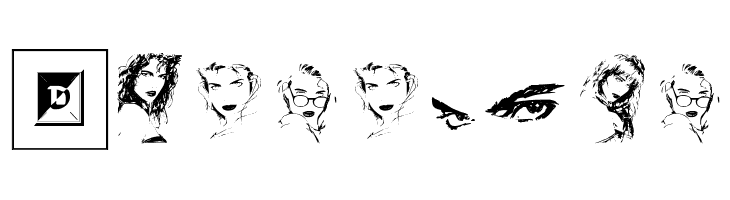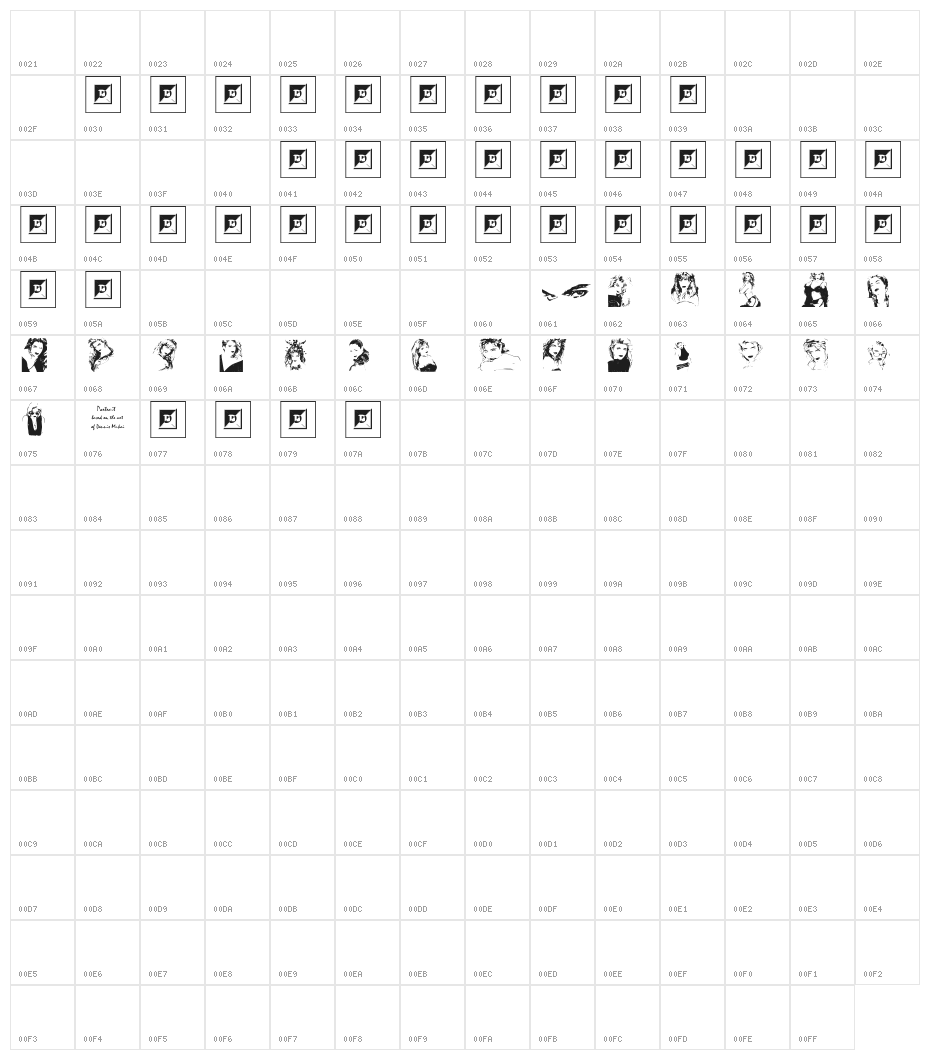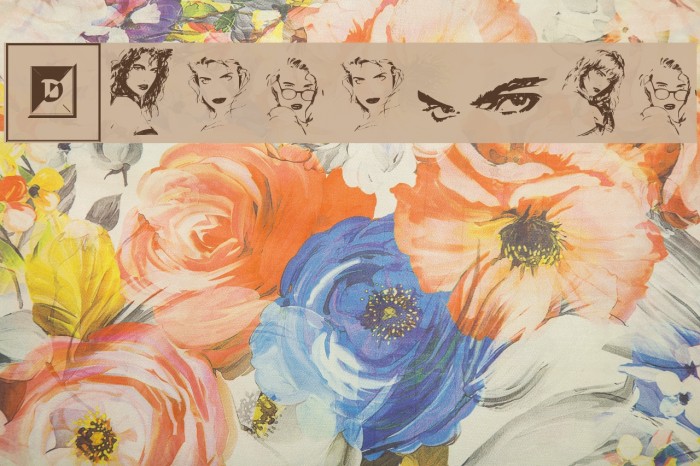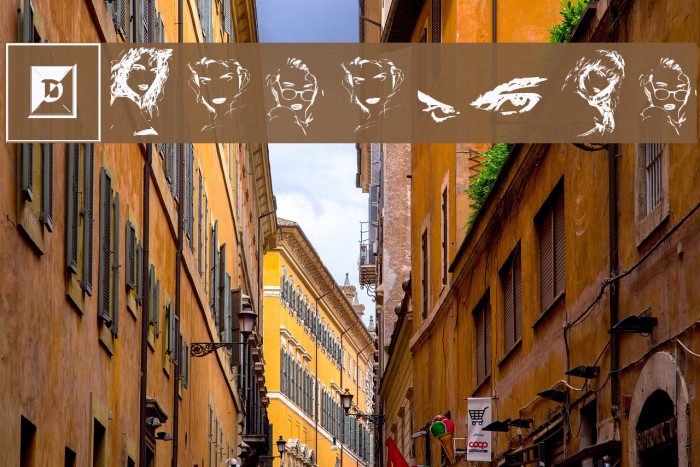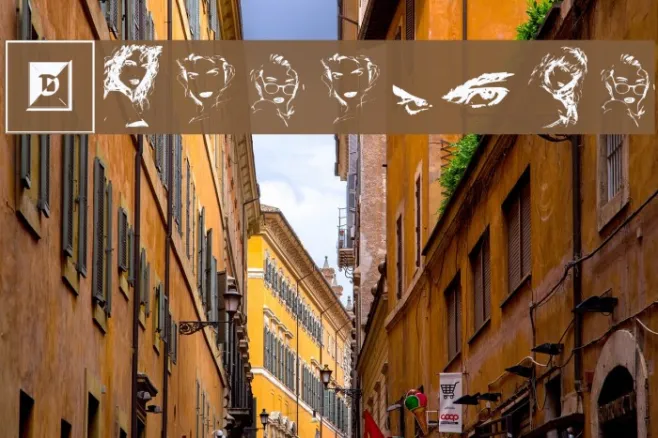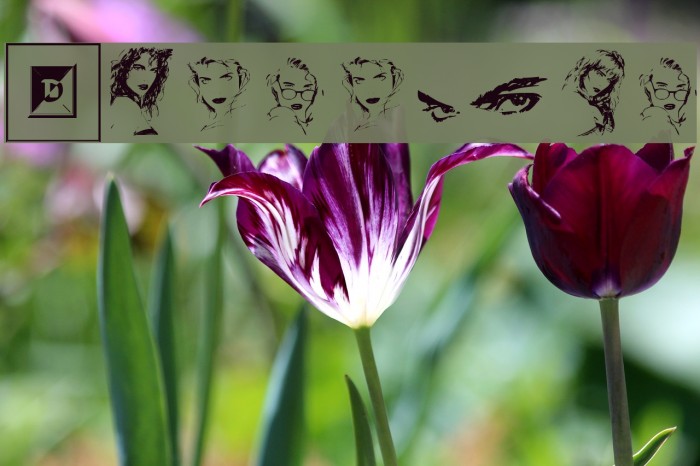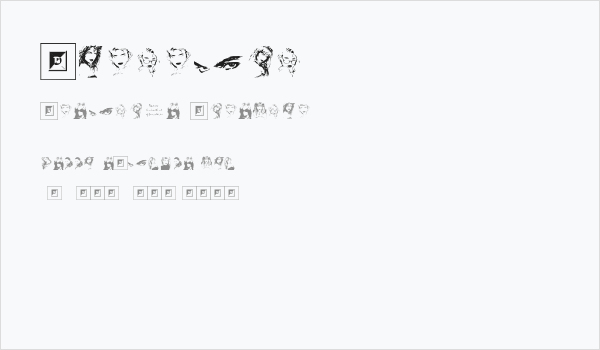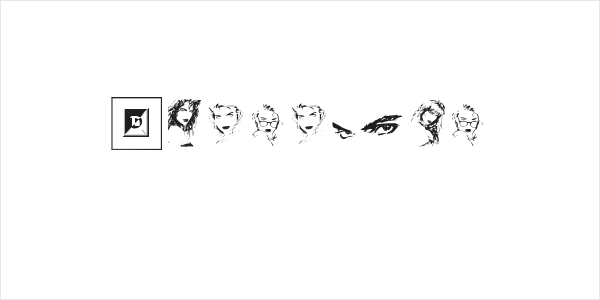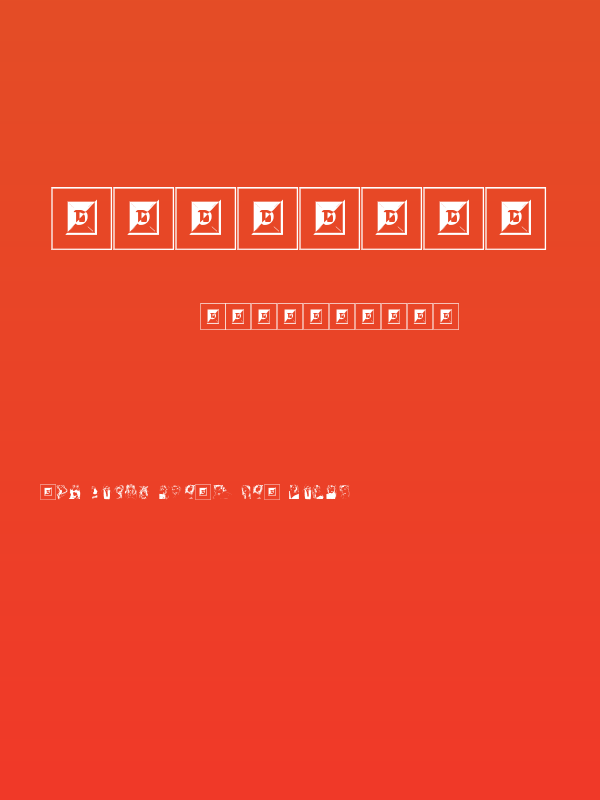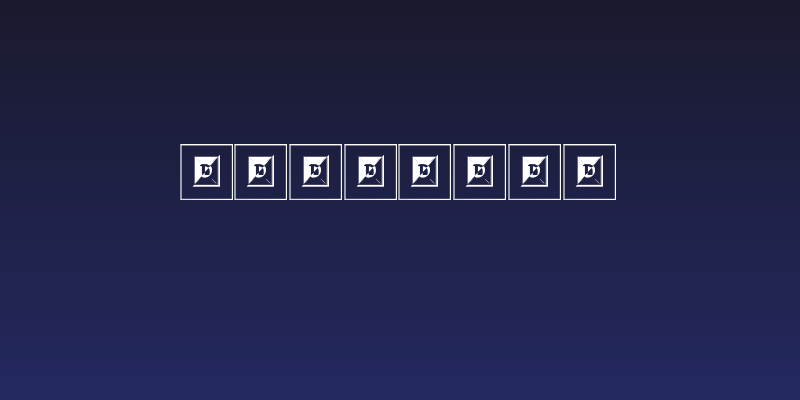
A highly decorative and illustrative font featuring detailed black-and-white portrait sketches for each letter, with some standard geometric placeholder glyphs for non-alphabetic characters. The style is artistic and expressive, mimicking hand-drawn ink portraits.
Overall StyleDecorative, Artistic, Illustrative
Use CaseHeadlines, Posters, Artistic projects, Display purposes
Proposed ProjectsAlbum covers, posters, editorial headlines, art projects, creative branding.